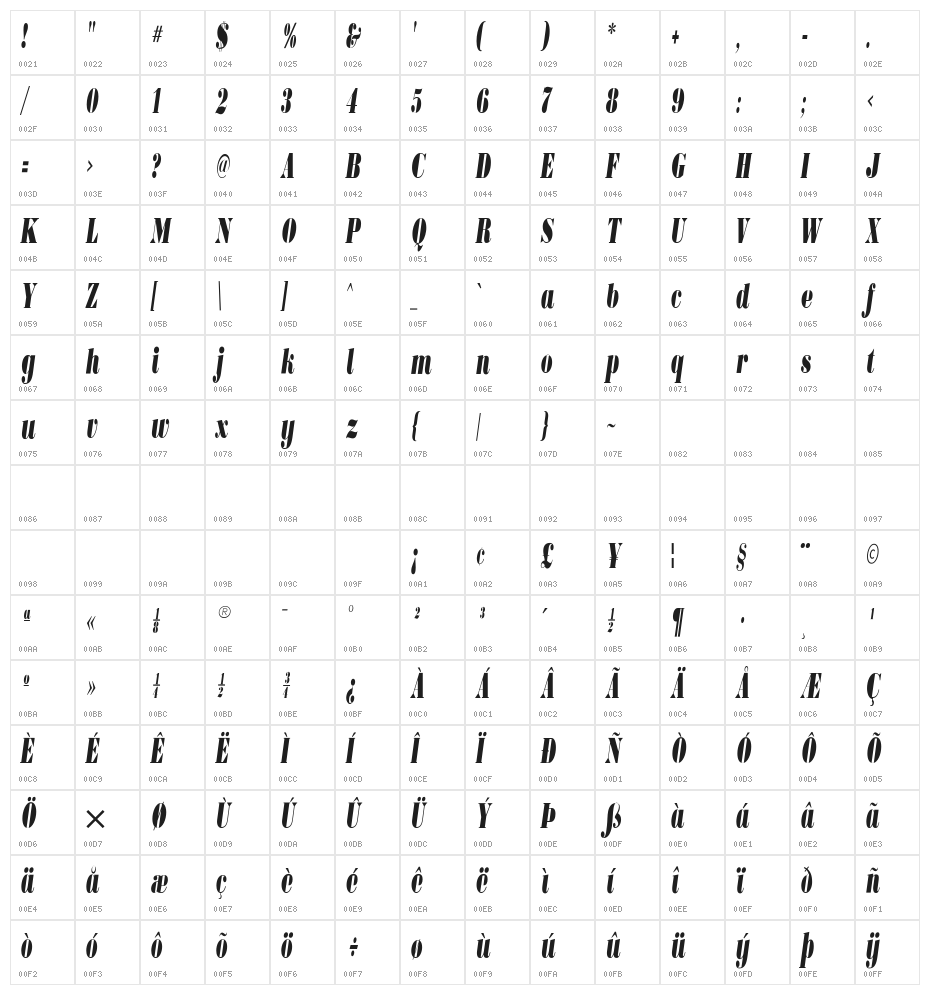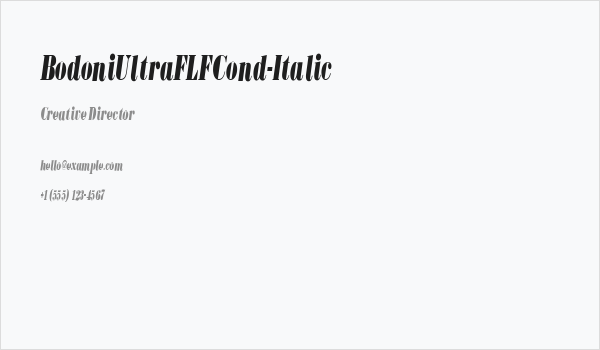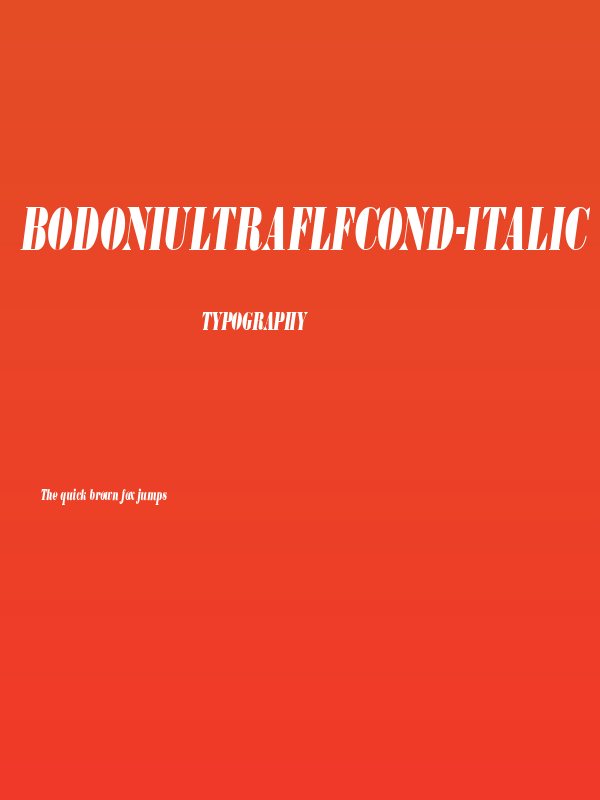
BodoniUltraFLFCond-Italic Font
BodoniUltraFLFCond-Italic Description
This font exhibits a classic and elegant style with a high contrast between thick and thin strokes, characteristic of the Didone classification. The letters are condensed, giving a sleek and sophisticated appearance. The italic slant adds a dynamic and graceful touch, enhancing the overall aesthetic. The uppercase letters are tall and commanding, while the lowercase letters maintain a refined and cohesive look. The numerals are consistent with the letterforms, providing a harmonious visual flow. Special characters are designed with the same attention to detail, ensuring versatility in various design contexts.
| Proposed Projects | Ideal for luxury branding, editorial design, fashion magazines, and elegant invitations. |